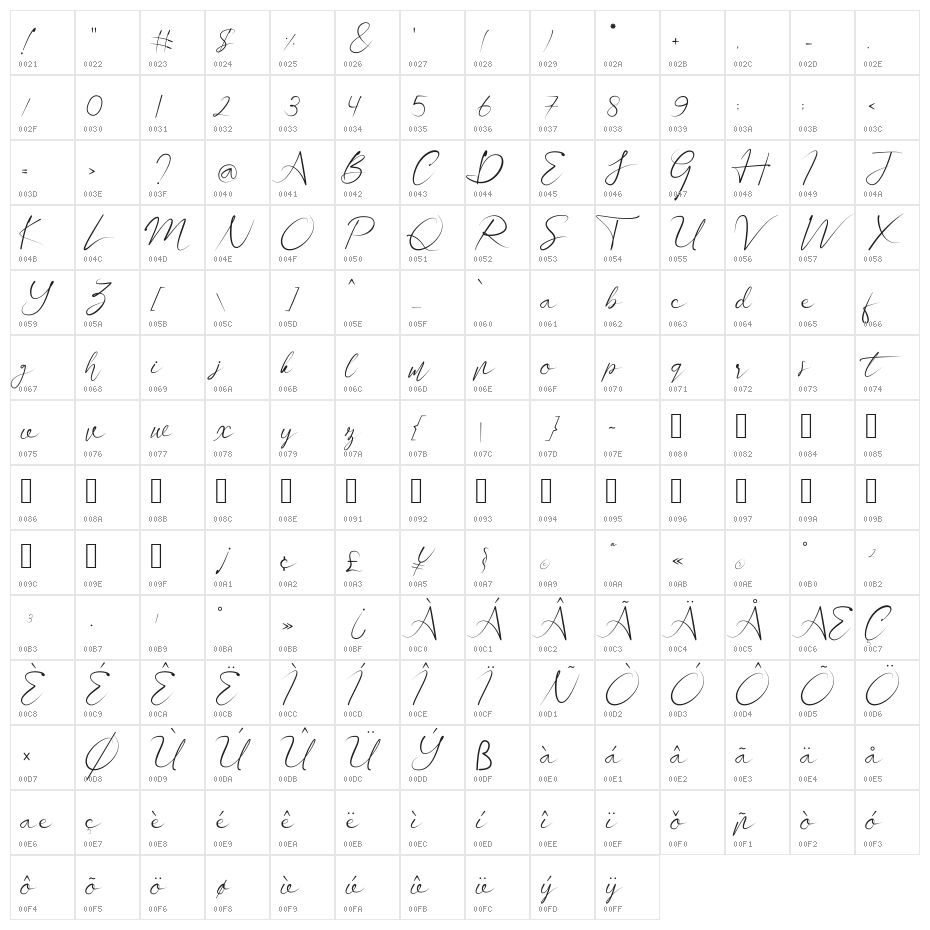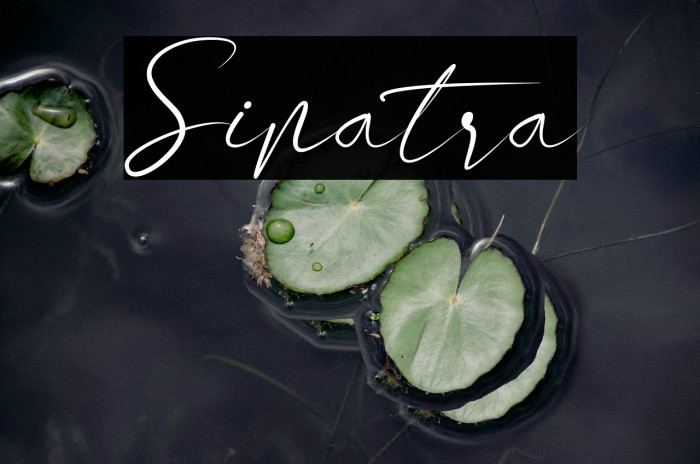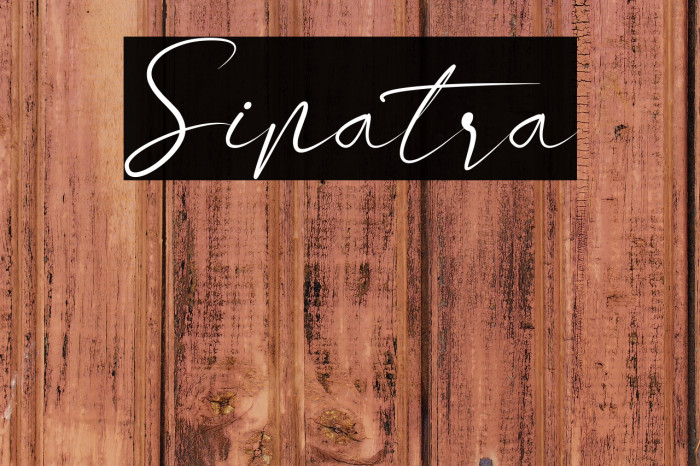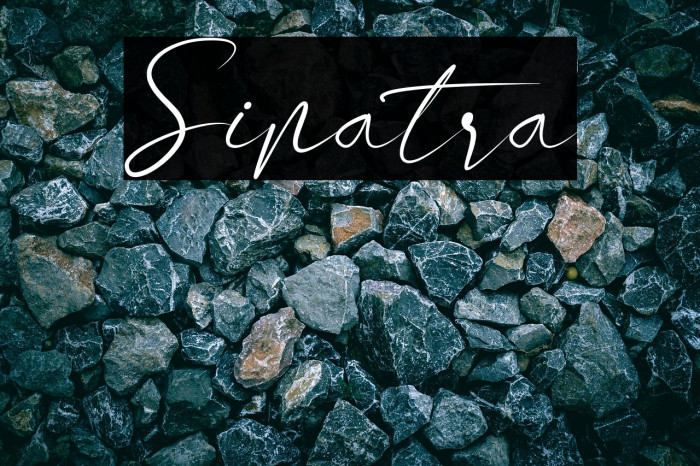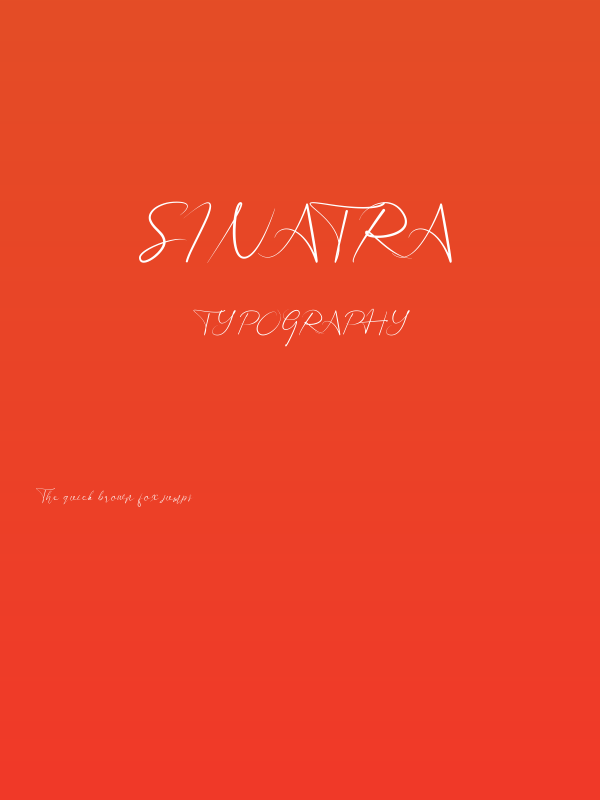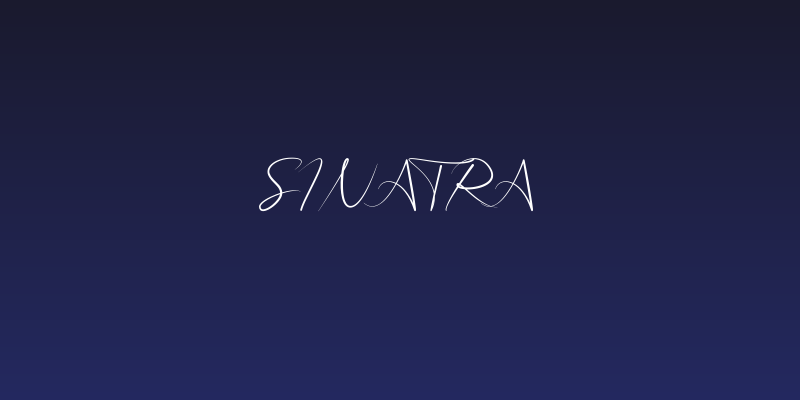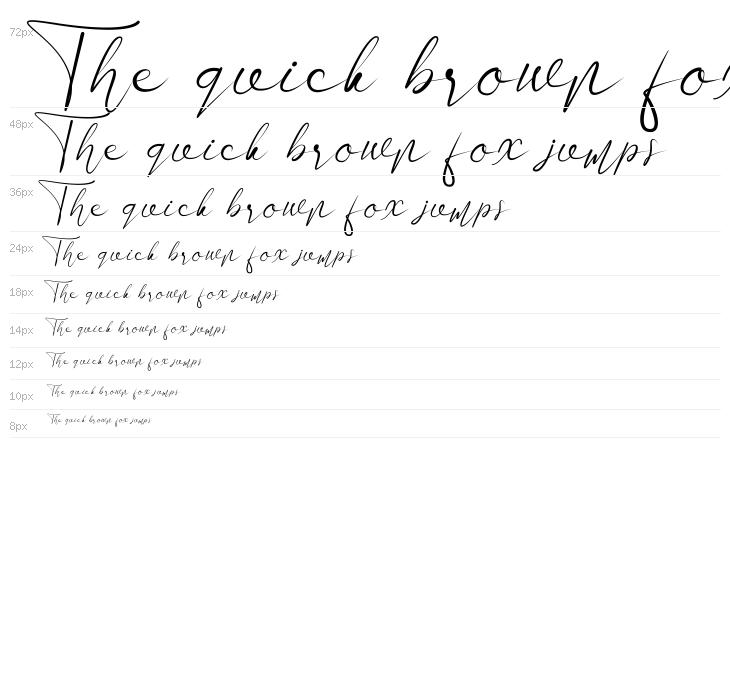
Sinatra Font
Sinatra Description
This elegant script font exudes a sense of sophistication and fluidity, characterized by its graceful, flowing lines and delicate curves. The letters are interconnected, creating a seamless and harmonious appearance. The uppercase letters are tall and slender, while the lowercase letters maintain a consistent rhythm with their rounded forms. The numerals and special characters are designed to complement the overall style, adding a touch of refinement. This font is perfect for projects that require a personal and artistic touch, such as invitations, greeting cards, and branding materials.
| Proposed Projects | Ideal for wedding invitations, elegant branding, personal stationery, and artistic projects. |